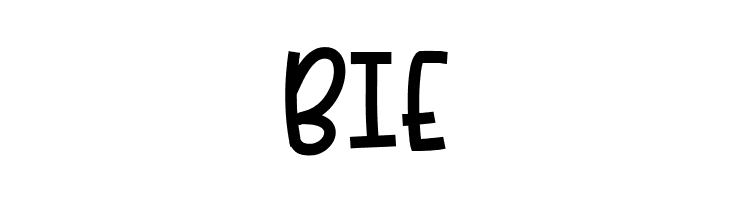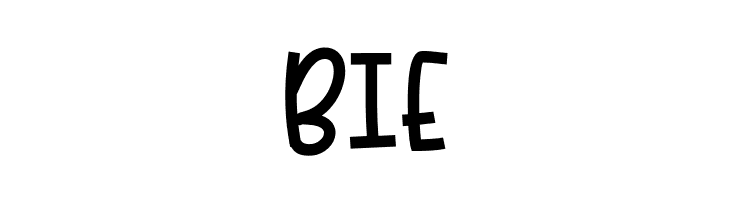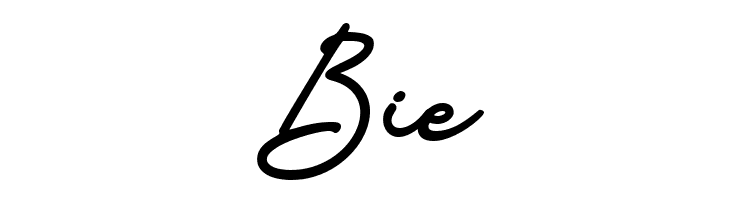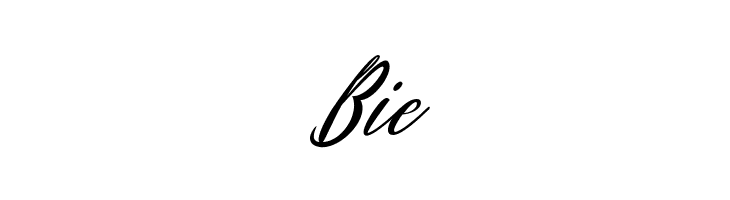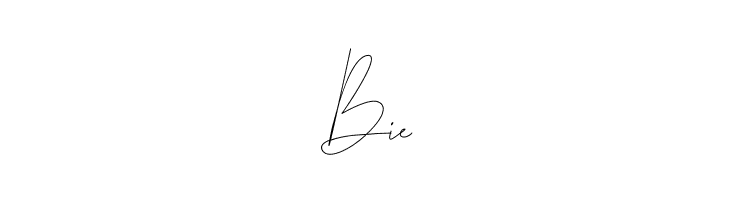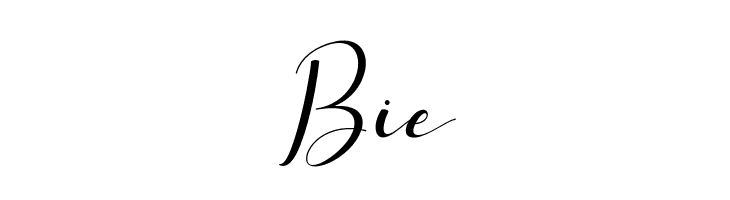
A delicate, elegant handwritten font with thin, flowing strokes.
A fluid and elegant script font with sweeping curves and high contrast.
A modern, elegant script font with flowing, cursive strokes and dramatic flourishes.
A bold, expressive handwritten font with fluid, brush-like strokes.
An elegant script font with flowing, interconnected letters and graceful flourishes.
A graceful, cursive font with a handwritten style.
A fluid and elegant script font with a handwritten feel.
A playful, handwritten font with a bold and lively style.
A playful, bold handwritten font with a casual and friendly appearance.
A modern, tall, and narrow font with uniform stroke width and geometric design.